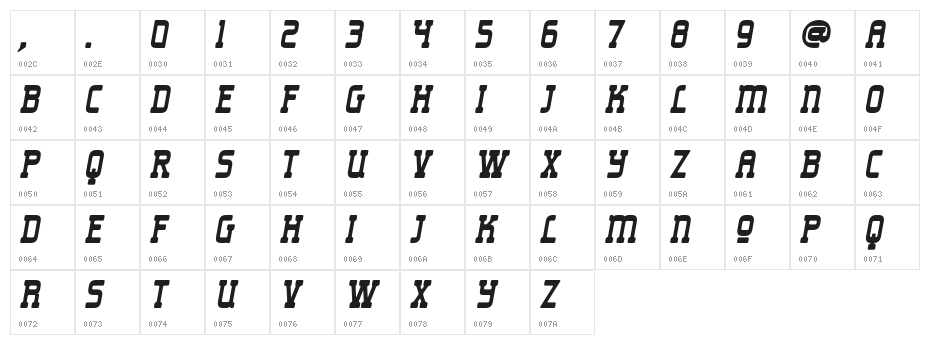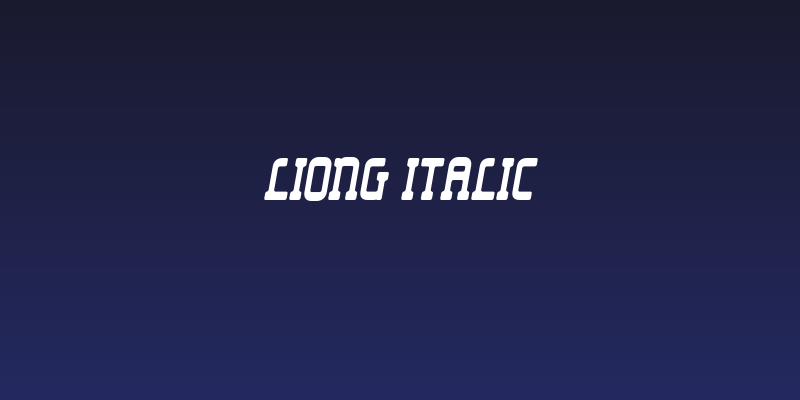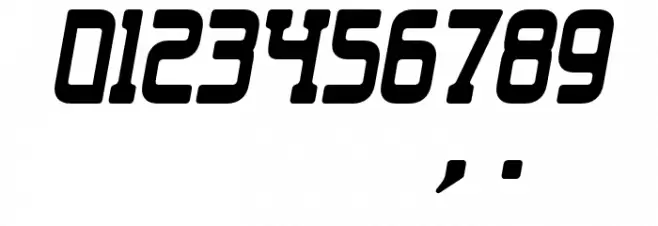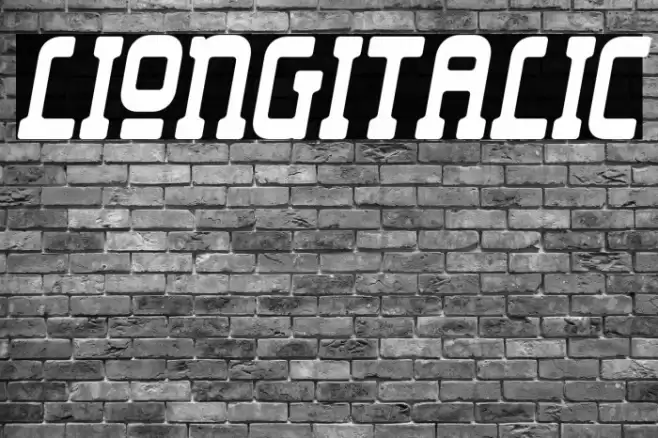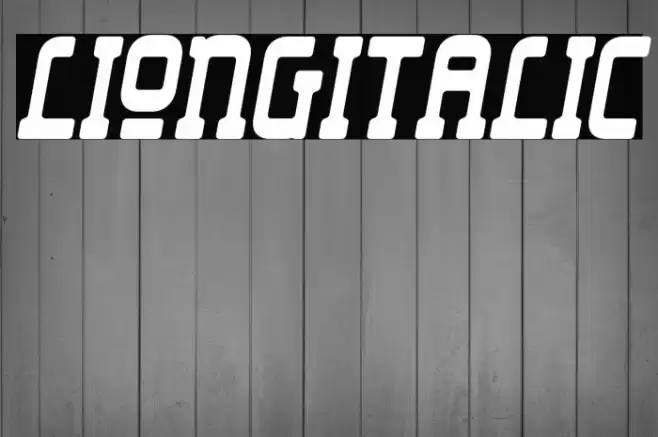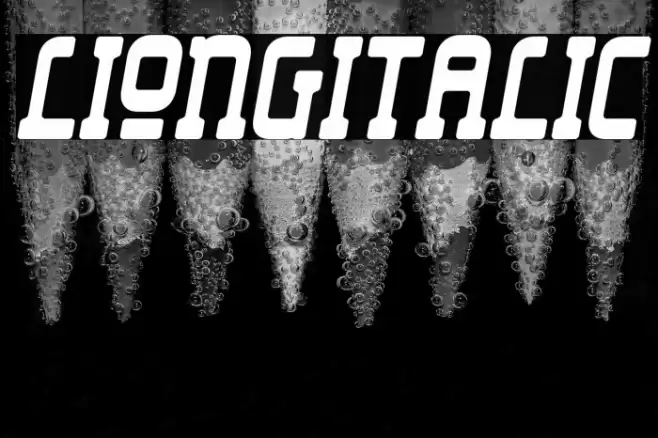
Liong-Italic Font
This font features a bold and dynamic style with a distinct italic slant, giving it a sense of movement and energy. The characters are robust and slightly condensed, with thick strokes that provide a strong visual impact. The design incorporates rounded edges and a uniform stroke width, contributing to its modern and sporty appearance. The font maintains a consistent baseline and x-height, ensuring readability while adding a unique flair to each character. Its boldness and slant make it ideal for attention-grabbing headlines and logos.